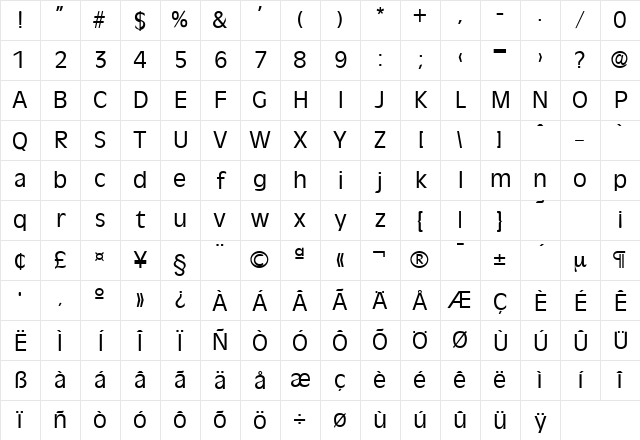
Ravenna-Serial Regular
Ravenna-Serial Family
Ravenna-Serial Regular
Design Context for Ravenna-Serial
Ravenna-Serial is a composed and adaptable typeface that performs quietly and consistently across a wide range of design contexts.